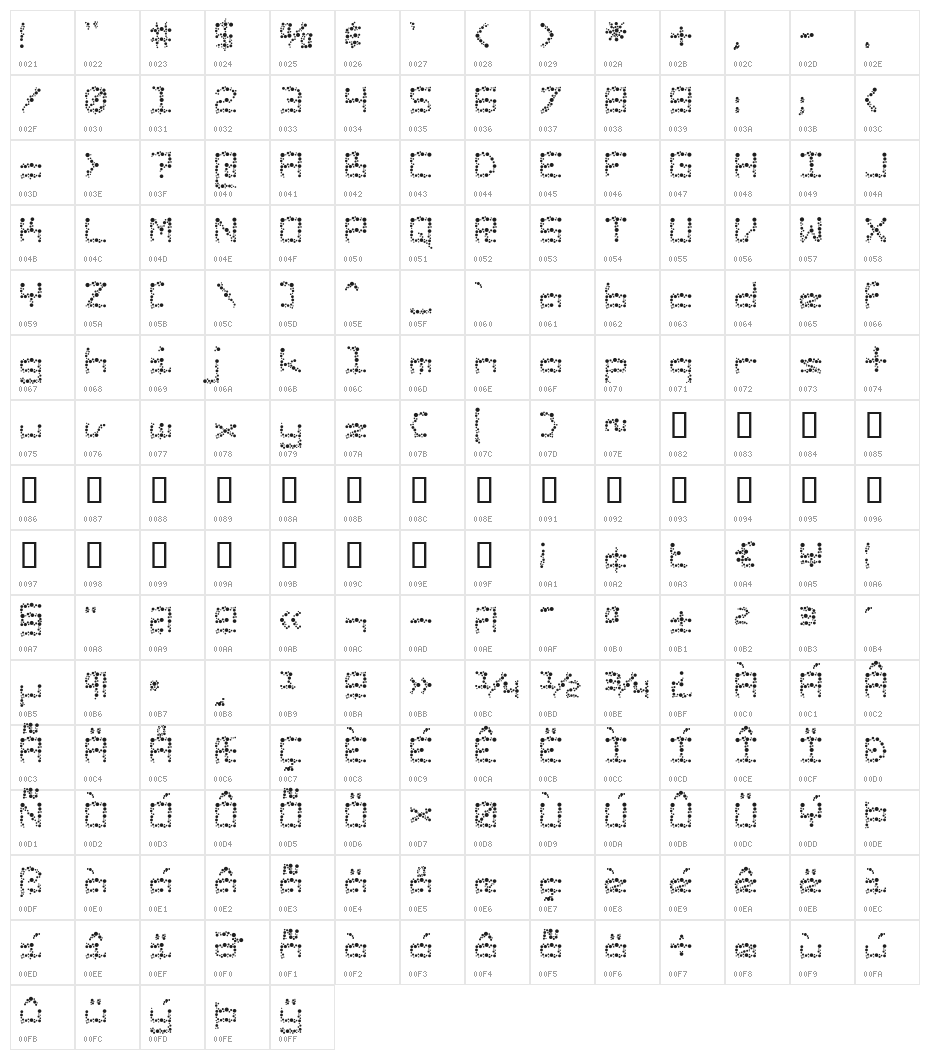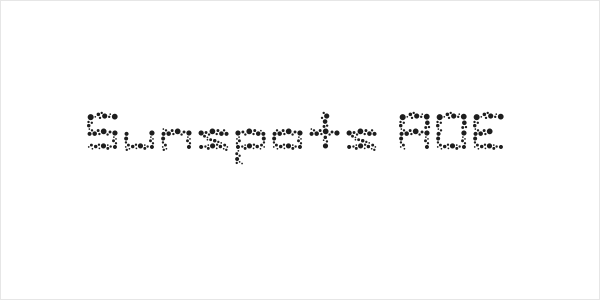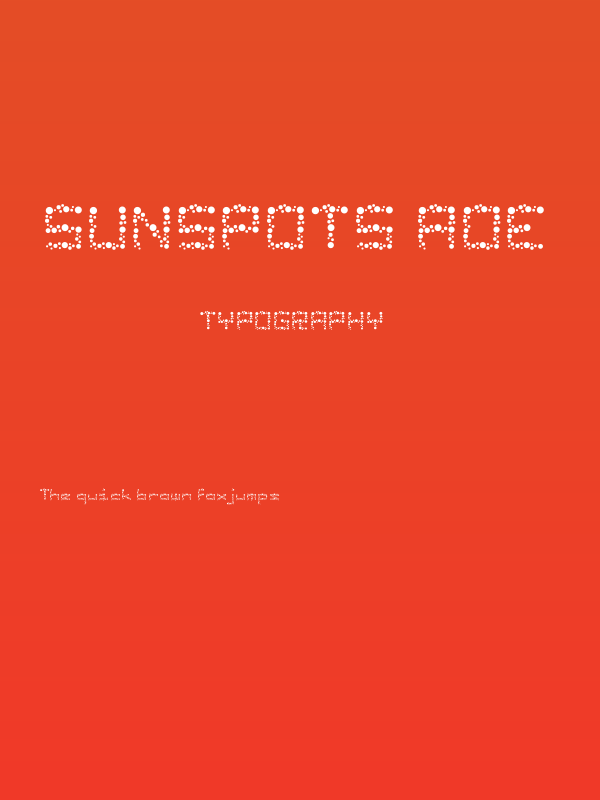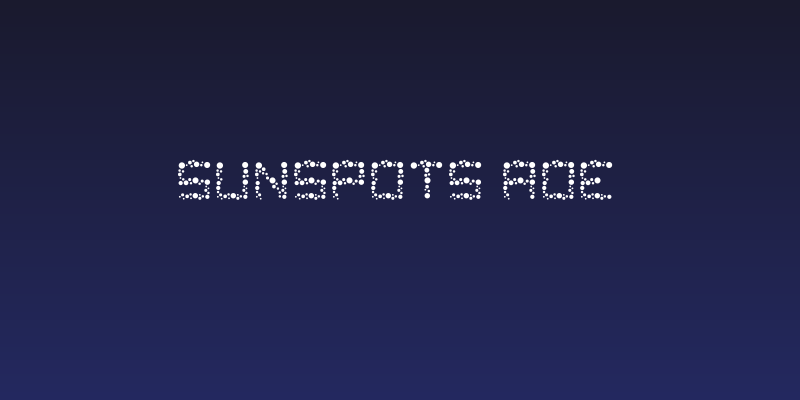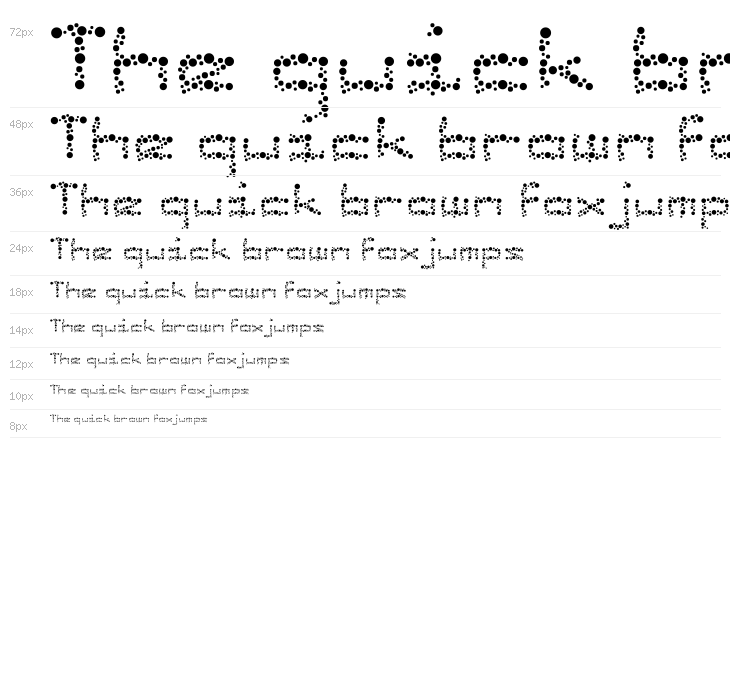
Sunspots AOE Font
Sunspots AOE Description
This font features a unique and playful design composed entirely of small dots forming each character. The dots vary slightly in size, creating a textured and dynamic appearance. The overall structure of the letters is geometric and consistent, with each character maintaining a uniform height and width. This dotted style gives the font a distinctive and eye-catching look, making it ideal for creative and informal applications. The font includes a full set of uppercase and lowercase letters, numbers, and a variety of special characters, ensuring versatility in its use.
| Proposed Projects | Ideal for children's books, playful branding, creative posters, and unique invitations. |